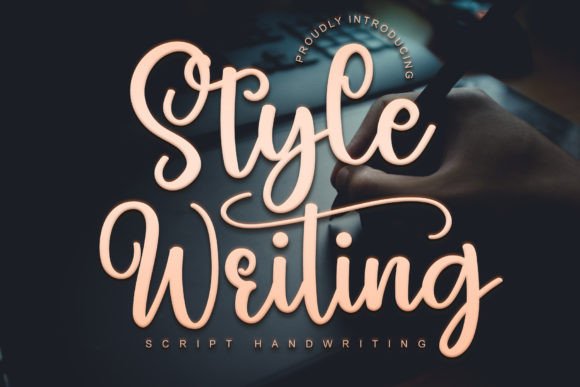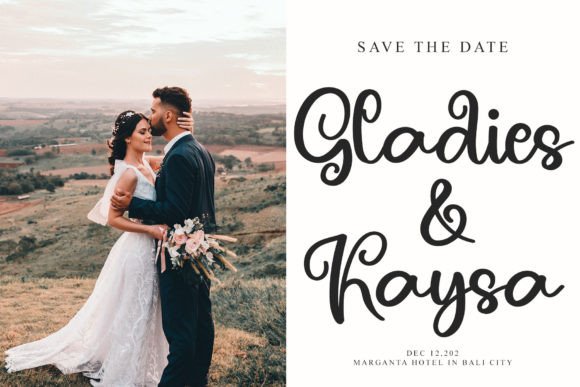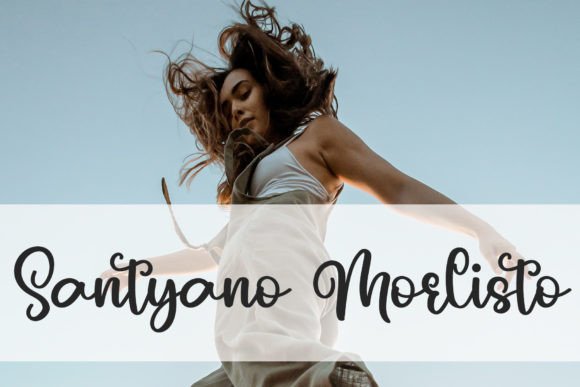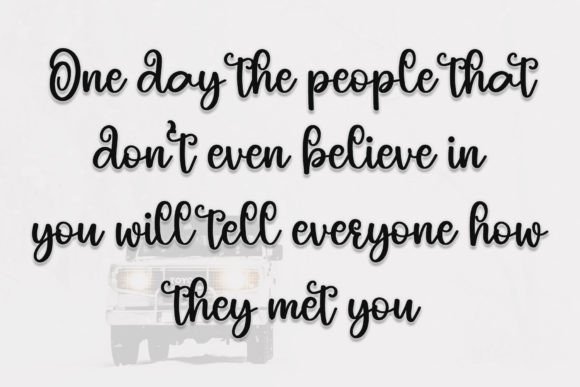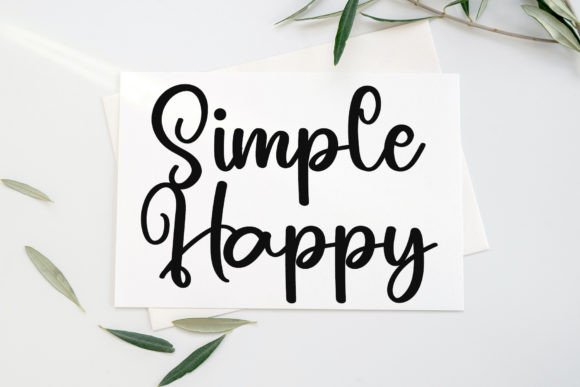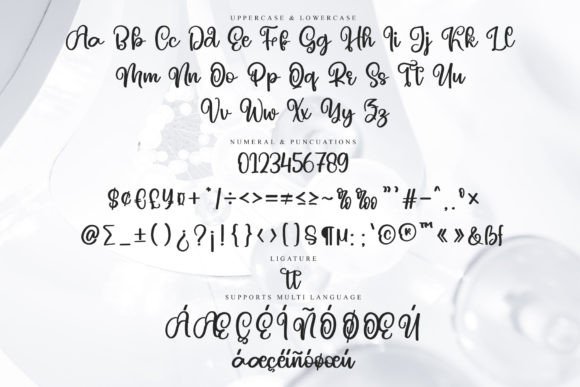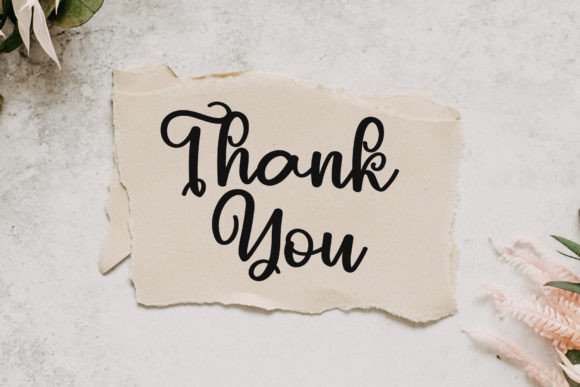
Style Writing Font
Add a Touch of Elegance with Style Writing Font
Style Writing Font is a handwritten typeface that combines sophistication with warmth. Whether you are designing for a romantic occasion or creating visuals for your brand, this font adds a refined, personal touch to every project. It is graceful, legible, and ideal for both print and digital design.
Crafted to evoke elegance, this font is smooth, stylish, and versatile. Its organic flow makes it easy to read while still adding a creative flair to your typography. The font feels timeless yet fresh—perfect for today’s visual trends.
Where Style Meets Practical Design
One of the reasons Style Writing Font stands out is its ability to fit into many design contexts. Its charming curves and handcrafted character make it a go-to for designers who want to elevate their creative work with a luxurious handwritten vibe.
Ideal for a Wide Range of Creative Projects
You can confidently use Style Writing Font in many situations. Here are some of the most popular uses:
• Wedding Invitations: Give your celebration a classy and heartfelt feel.
• Thank-You Cards: Make every message feel more meaningful.
• Greeting Cards & Quotes: Add warmth and personal expression.
• Logos & Branding: Build a sophisticated brand identity.
• Business Cards: Leave a memorable impression with every introduction.
Design with Confidence and Style
Style Writing Font not only looks beautiful—it performs beautifully too. Whether you’re creating social media graphics, labels, posters, or merchandise, this font enhances your design with elegance and emotion. If your work calls for a handwritten look that blends charm and clarity, Style Writing Font delivers exactly what you need.